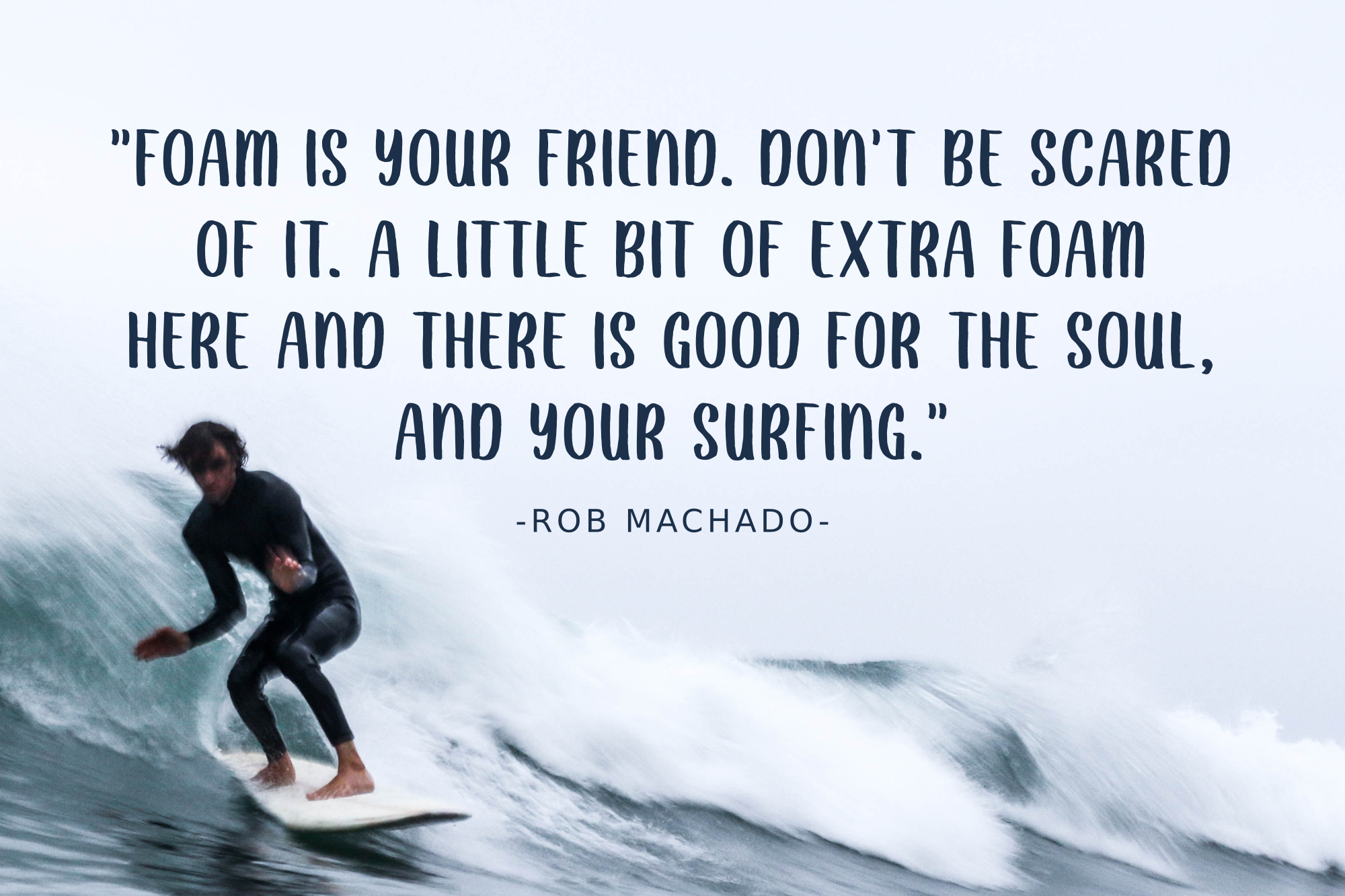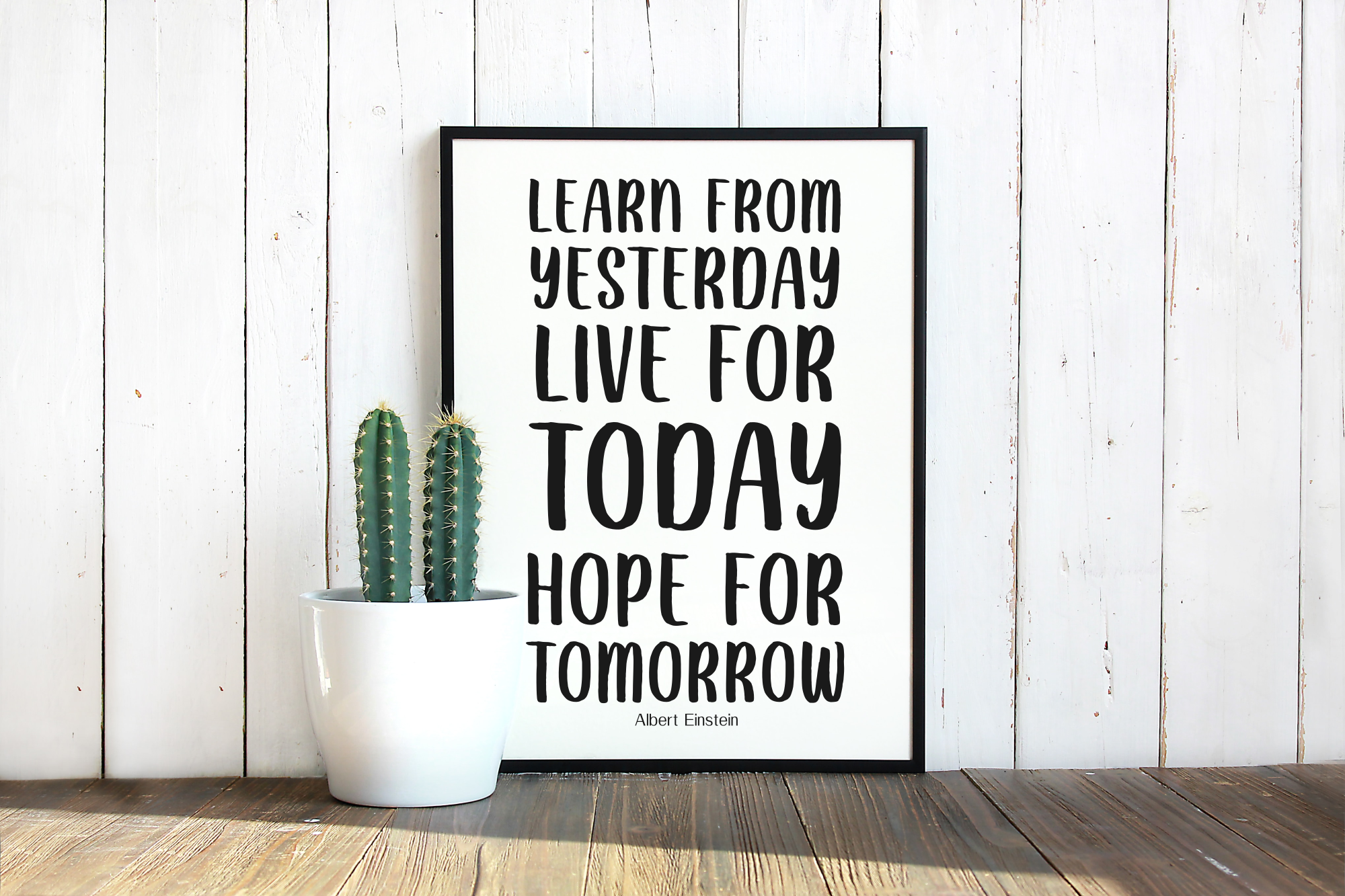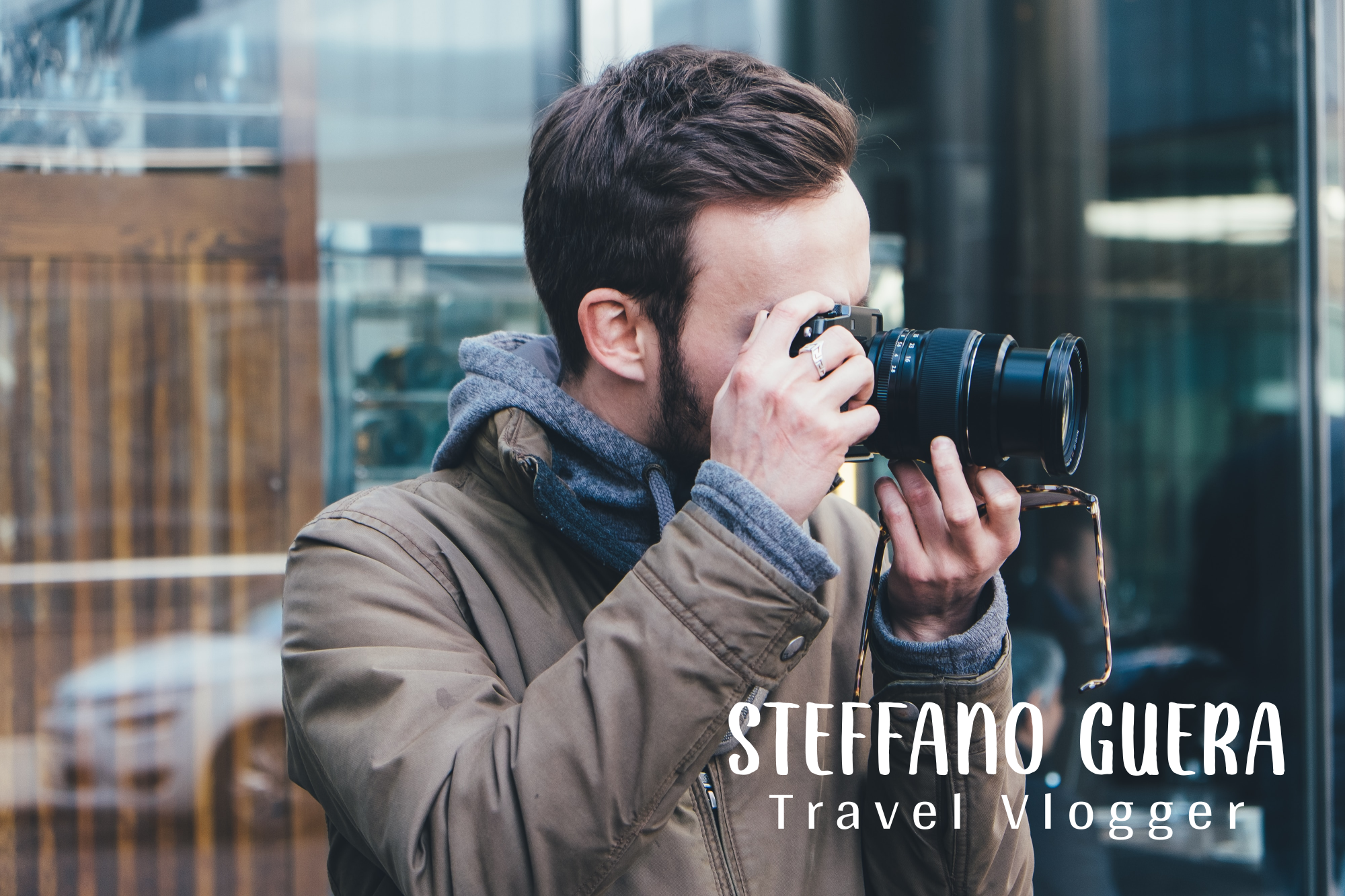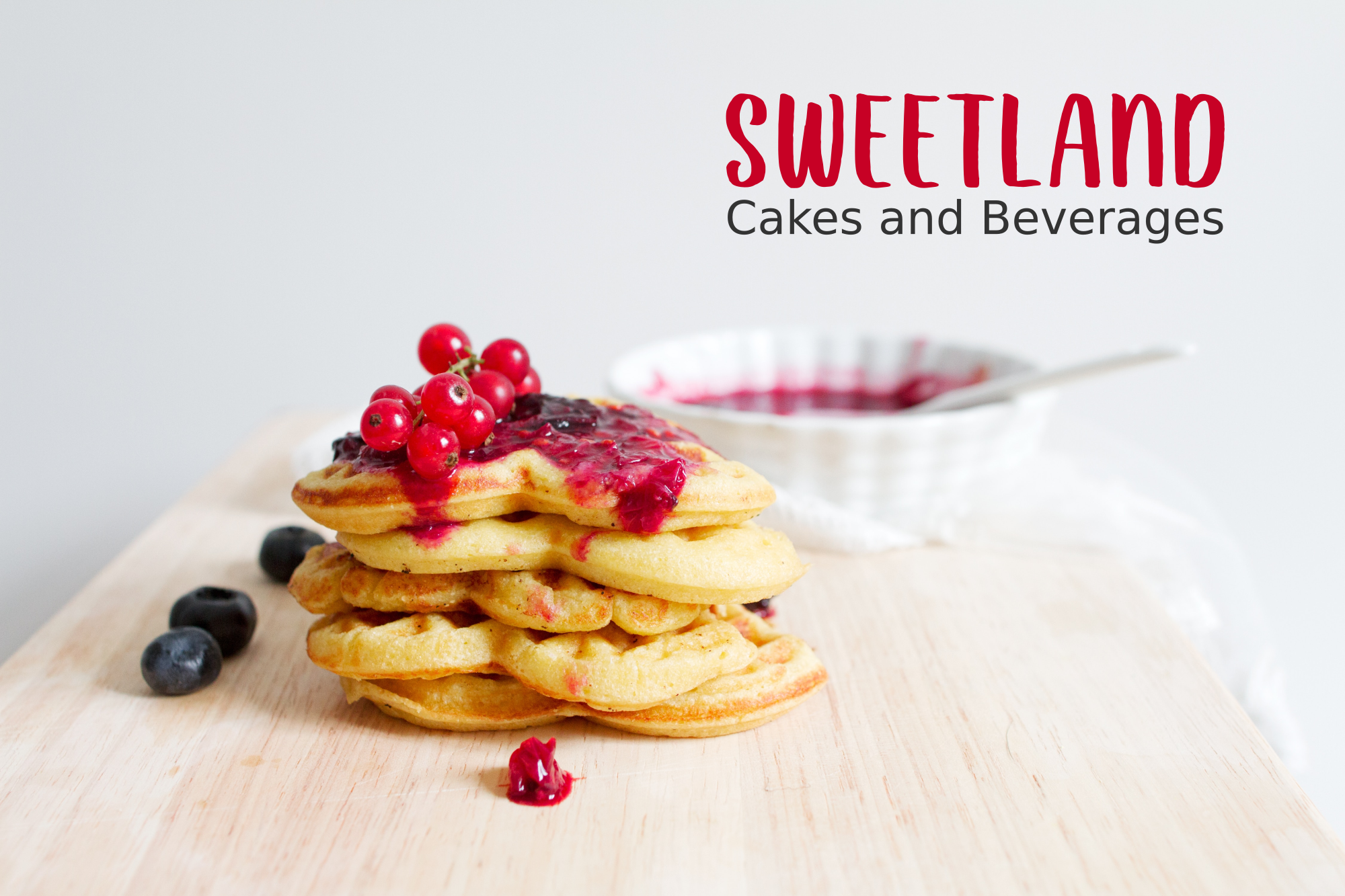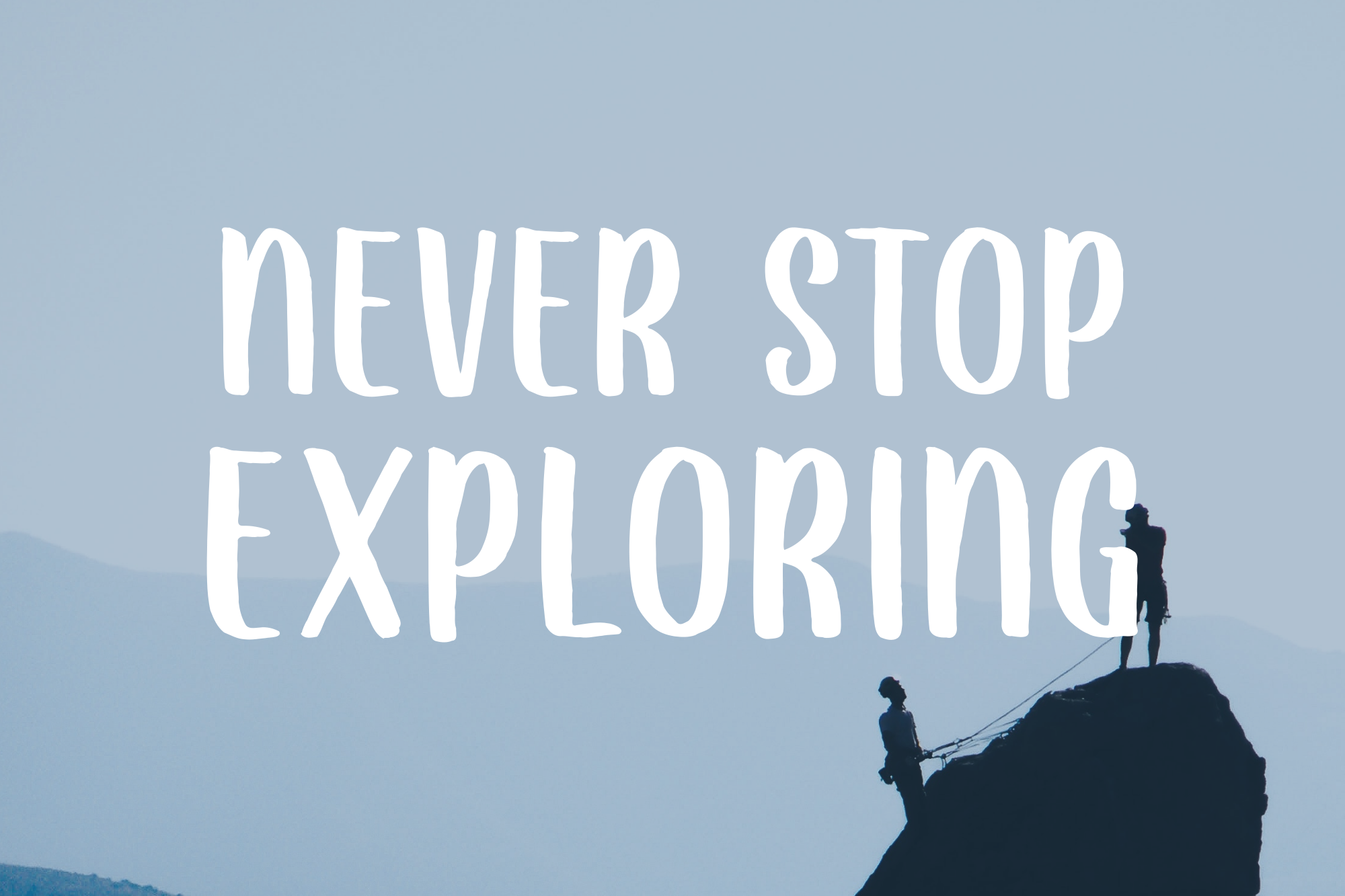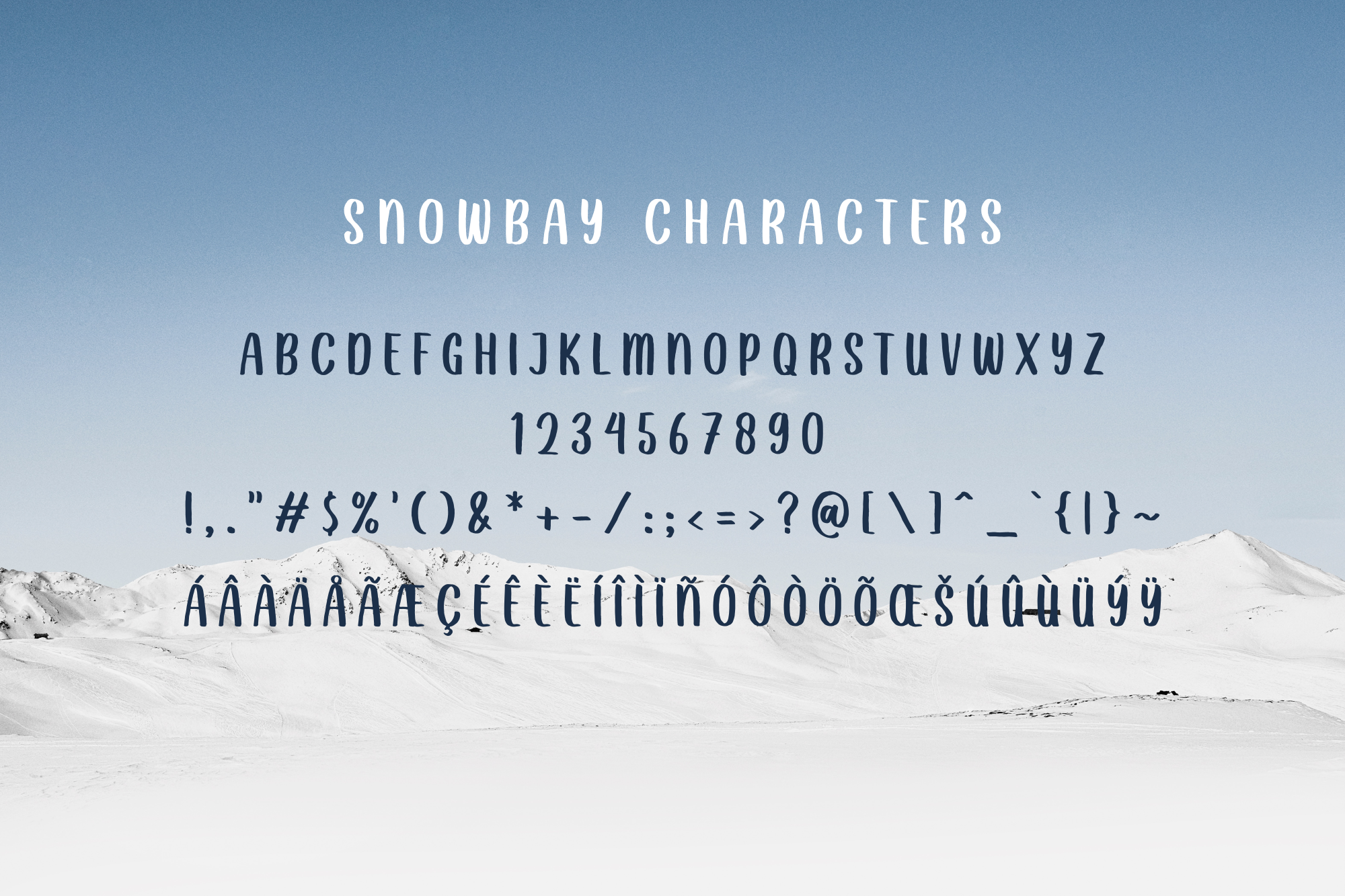
Snowbay - Handwritten Display Font
Snowbay is a playful and sweet script font inspired by children's handwriting. It has a friendly, fun, and handmade look that works well for cheerful design projects.
Snowbay is a playful and sweet script font inspired by children's handwriting. It has a friendly, fun, and handmade look that works well for cheerful design projects. Use it for kids branding, posters, packaging, greeting cards, crafts, social media graphics, and more.